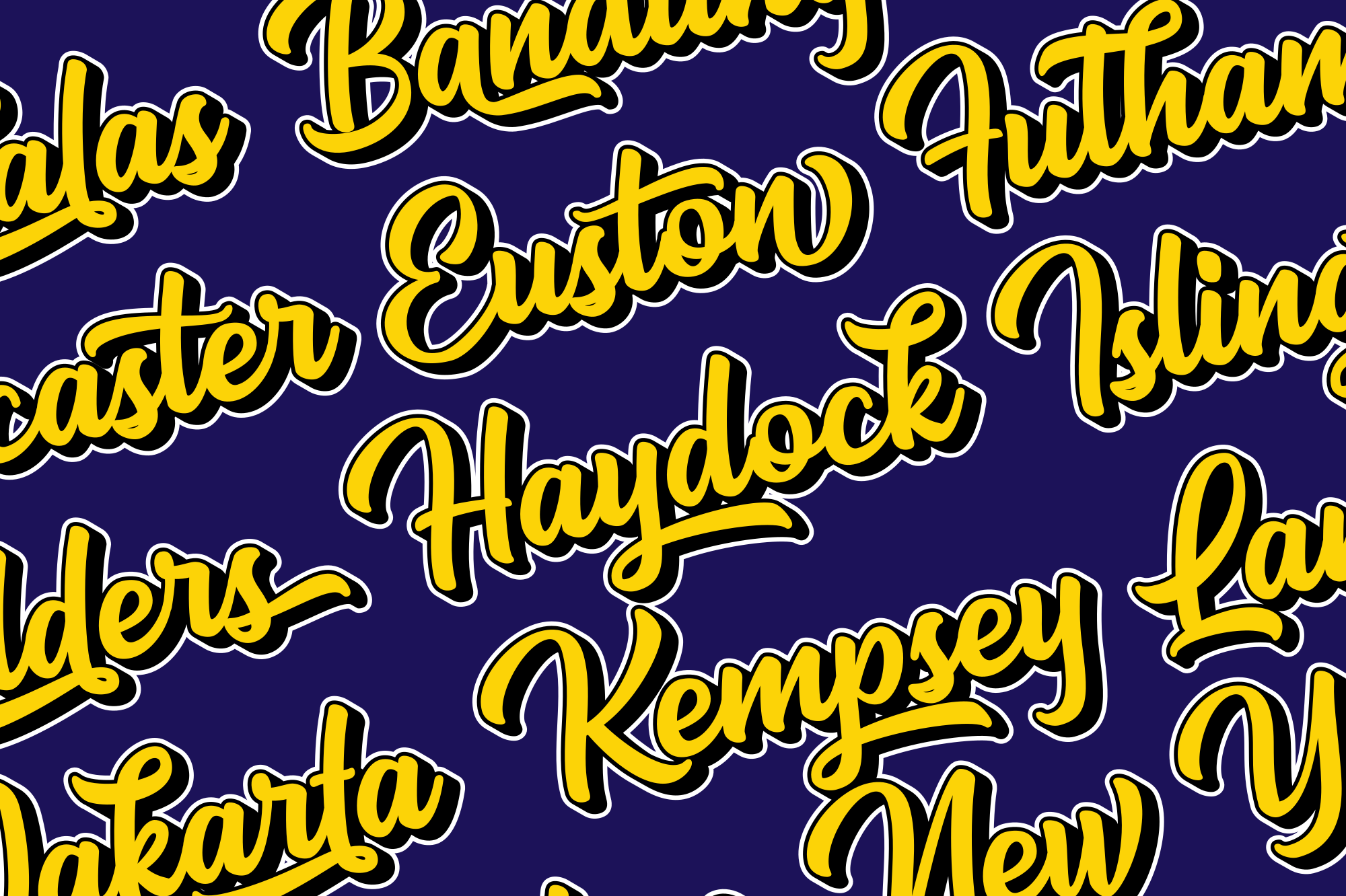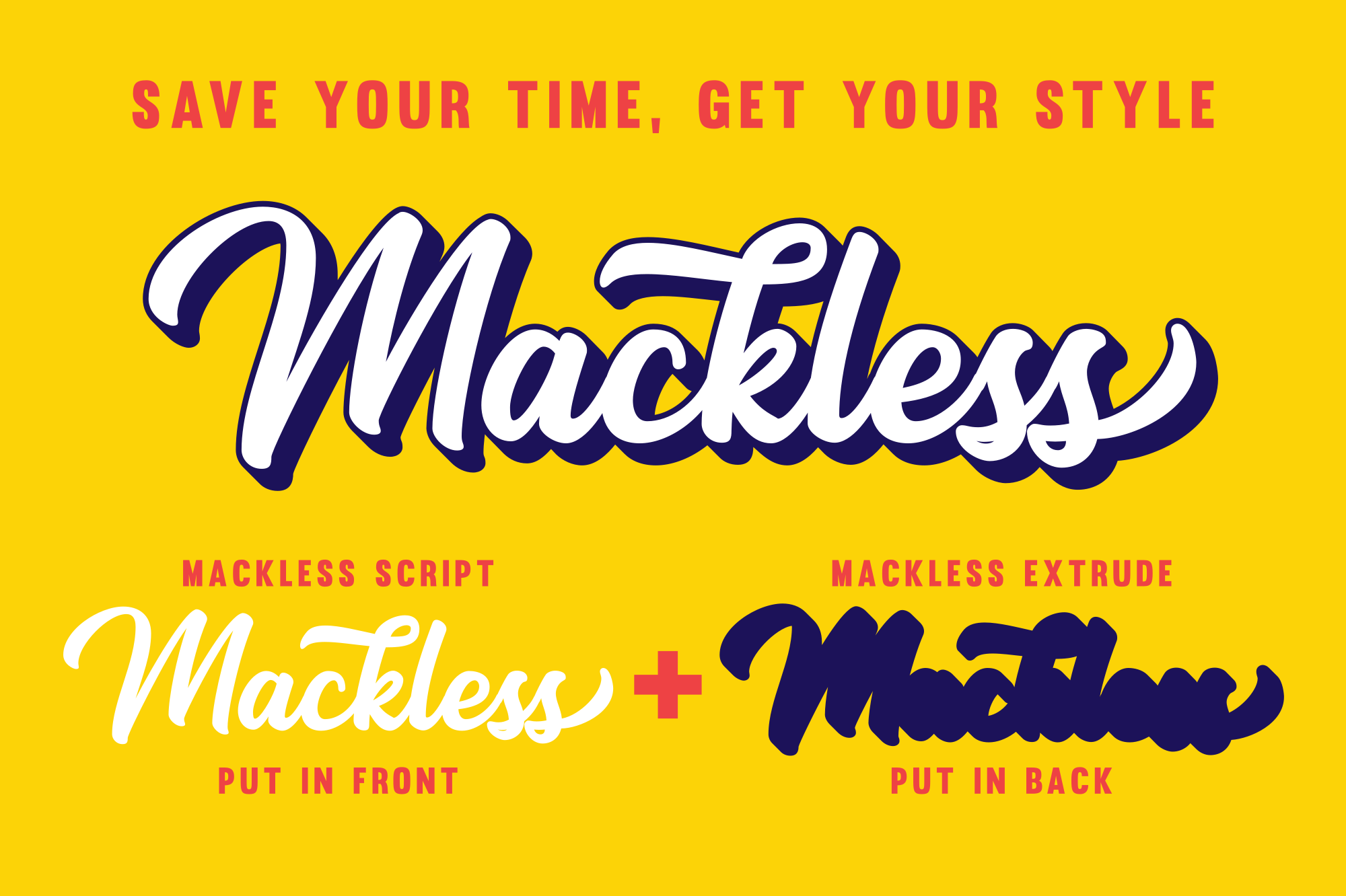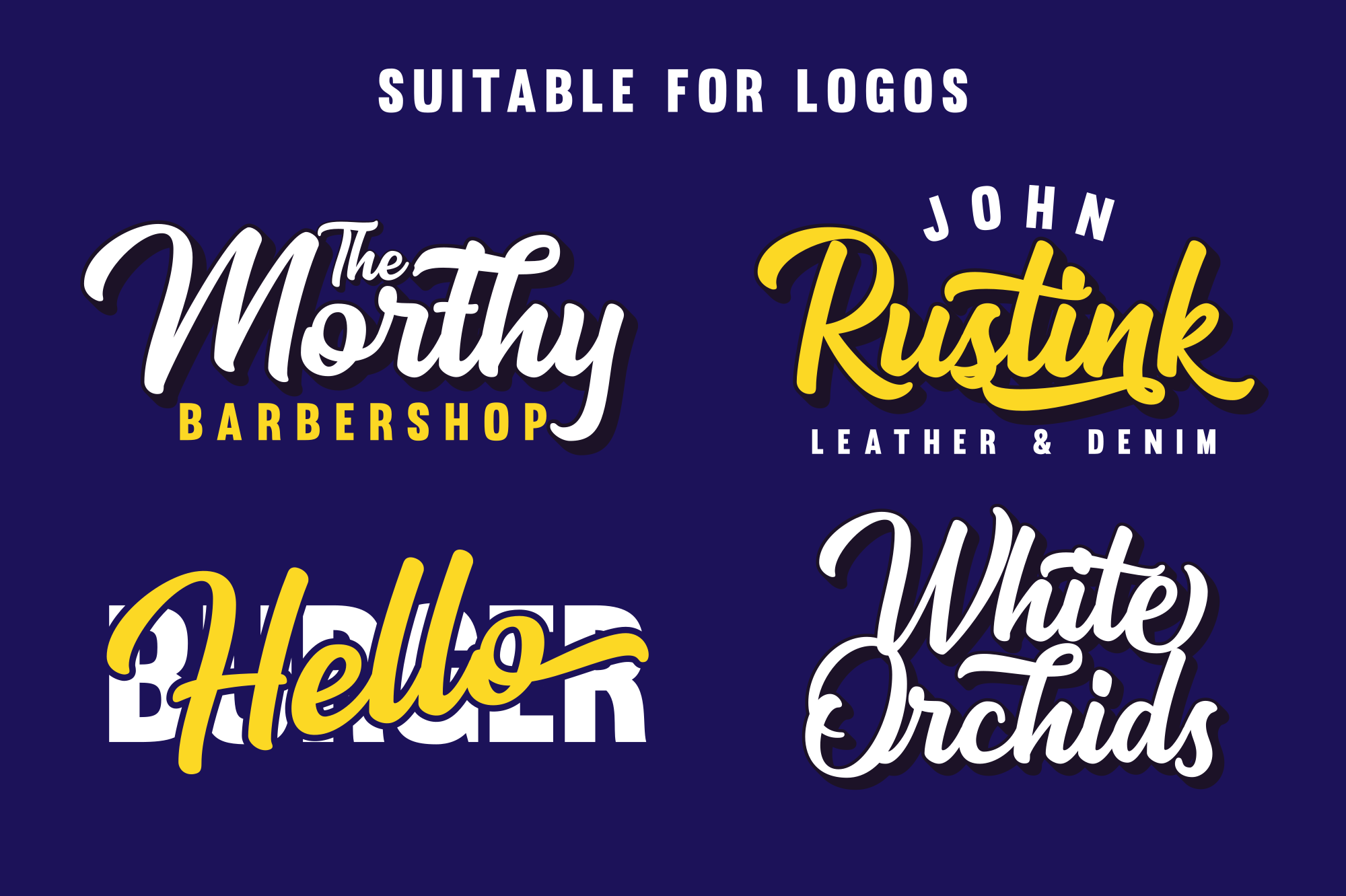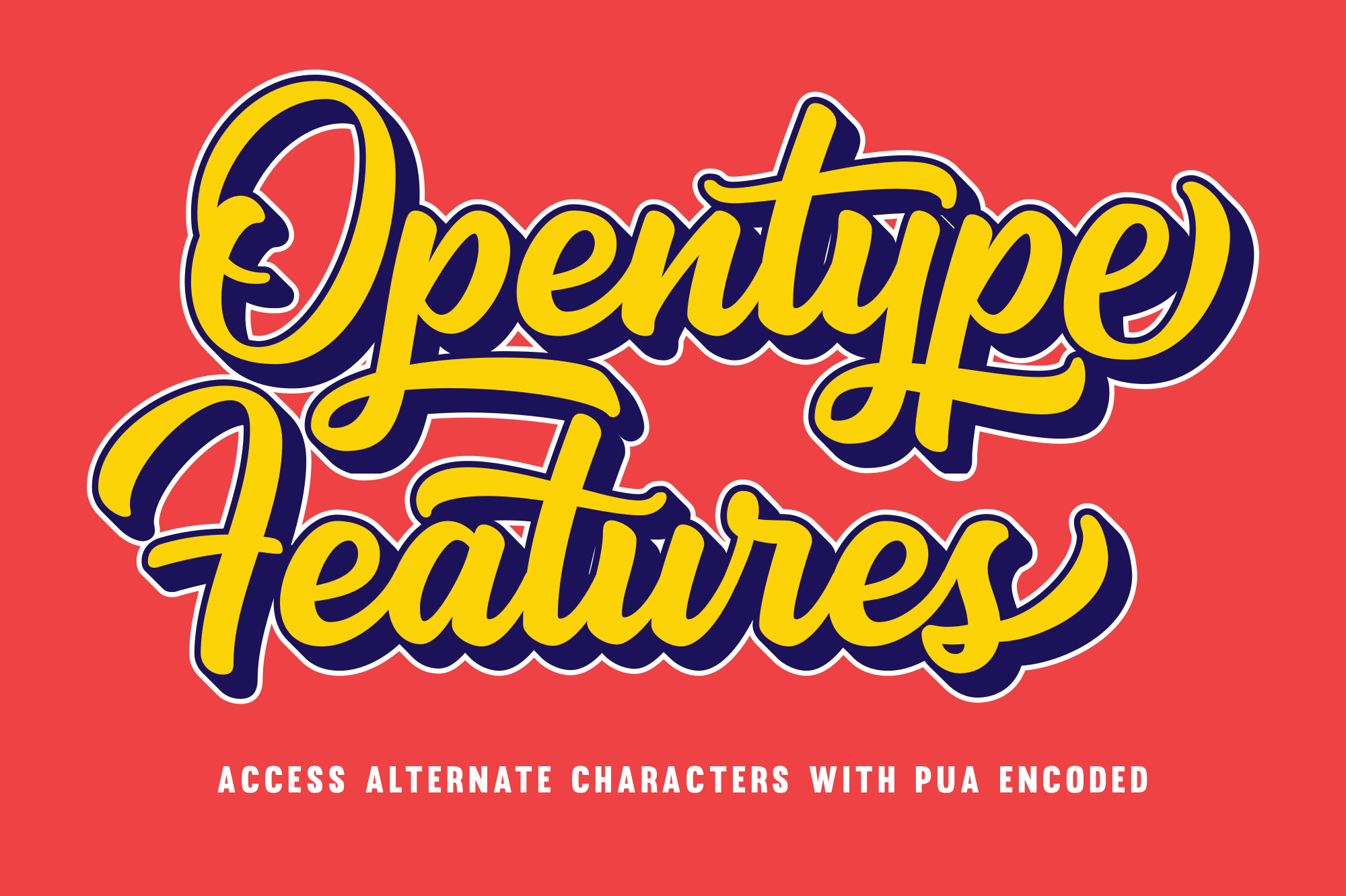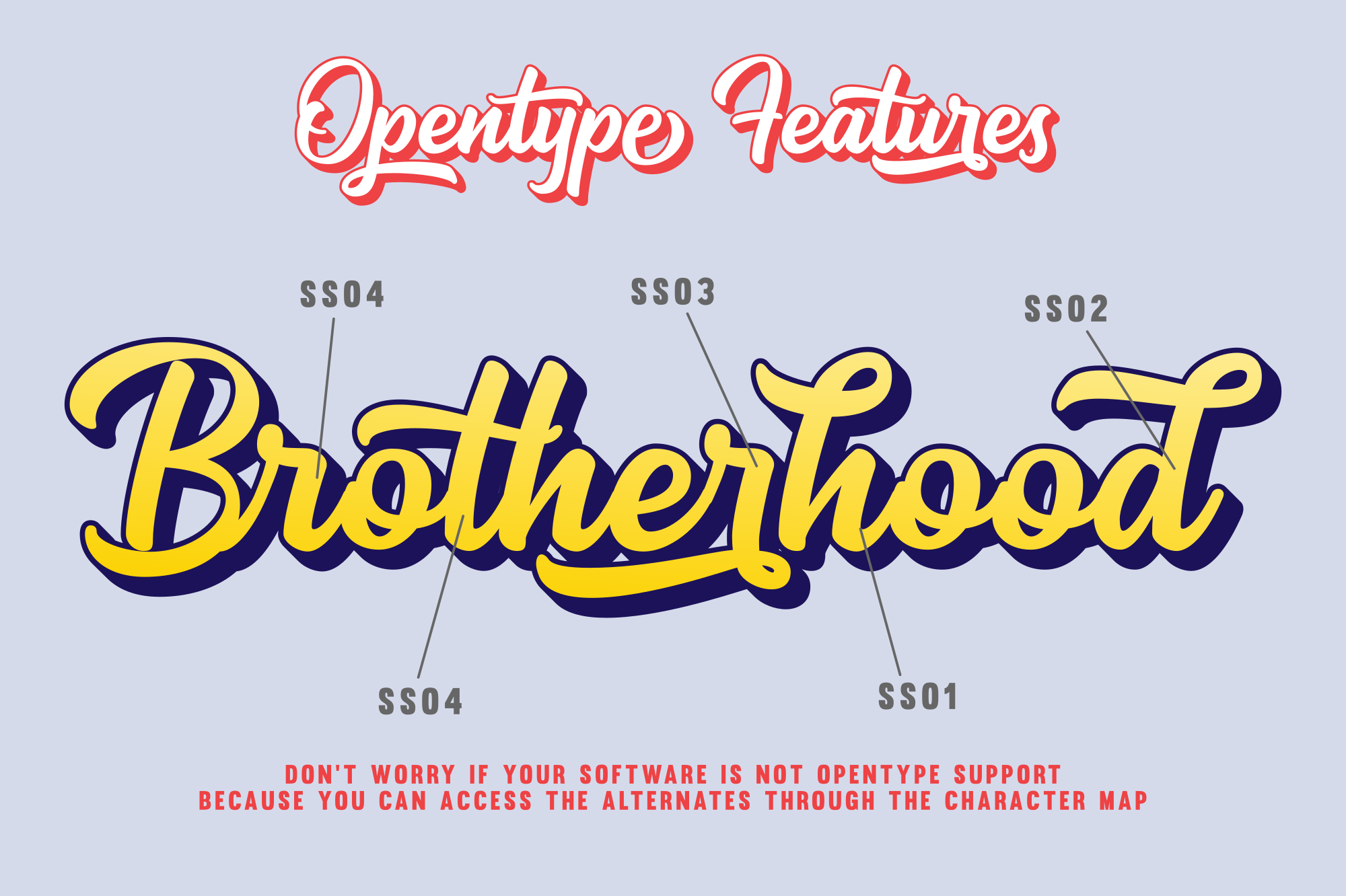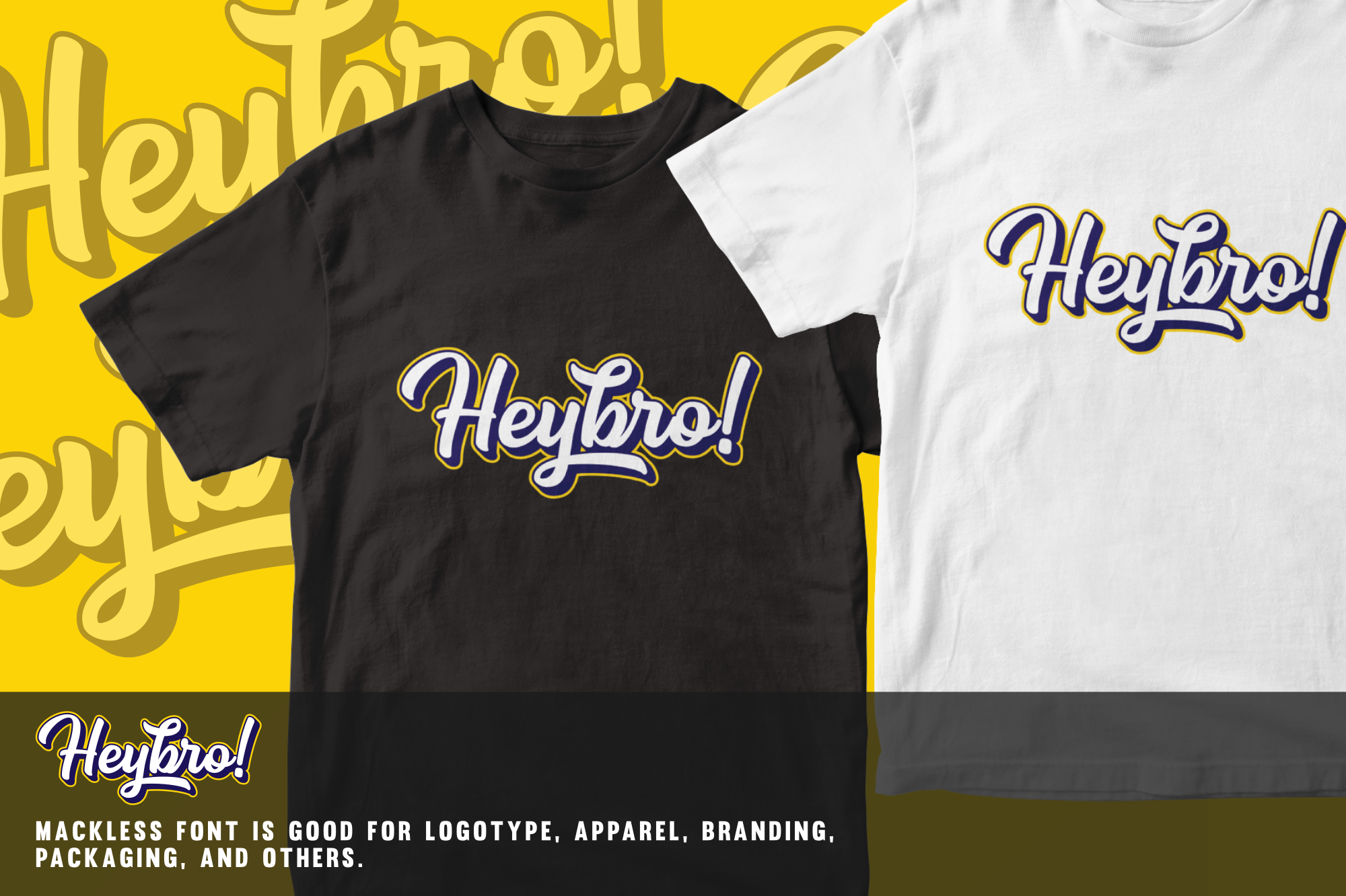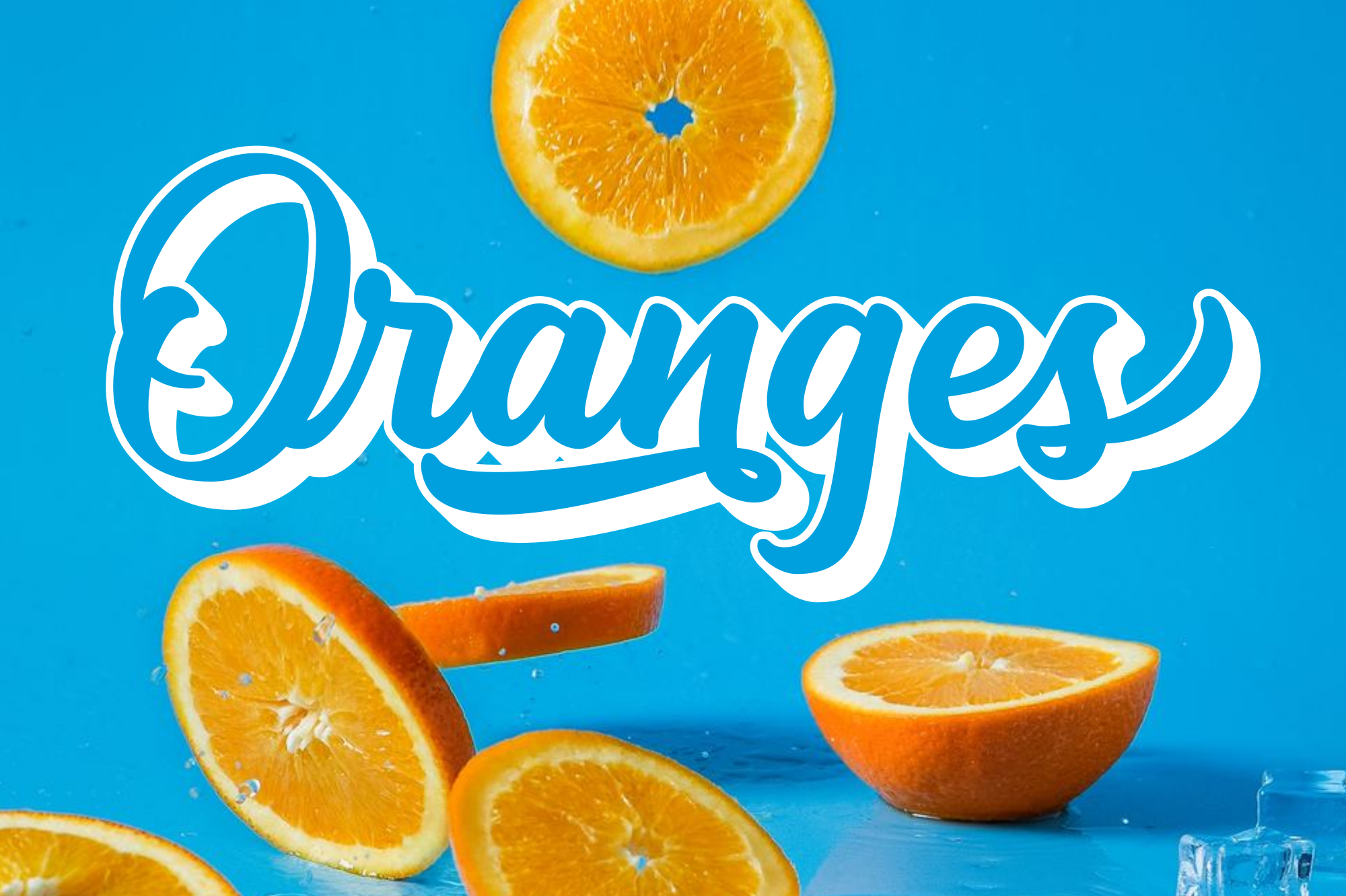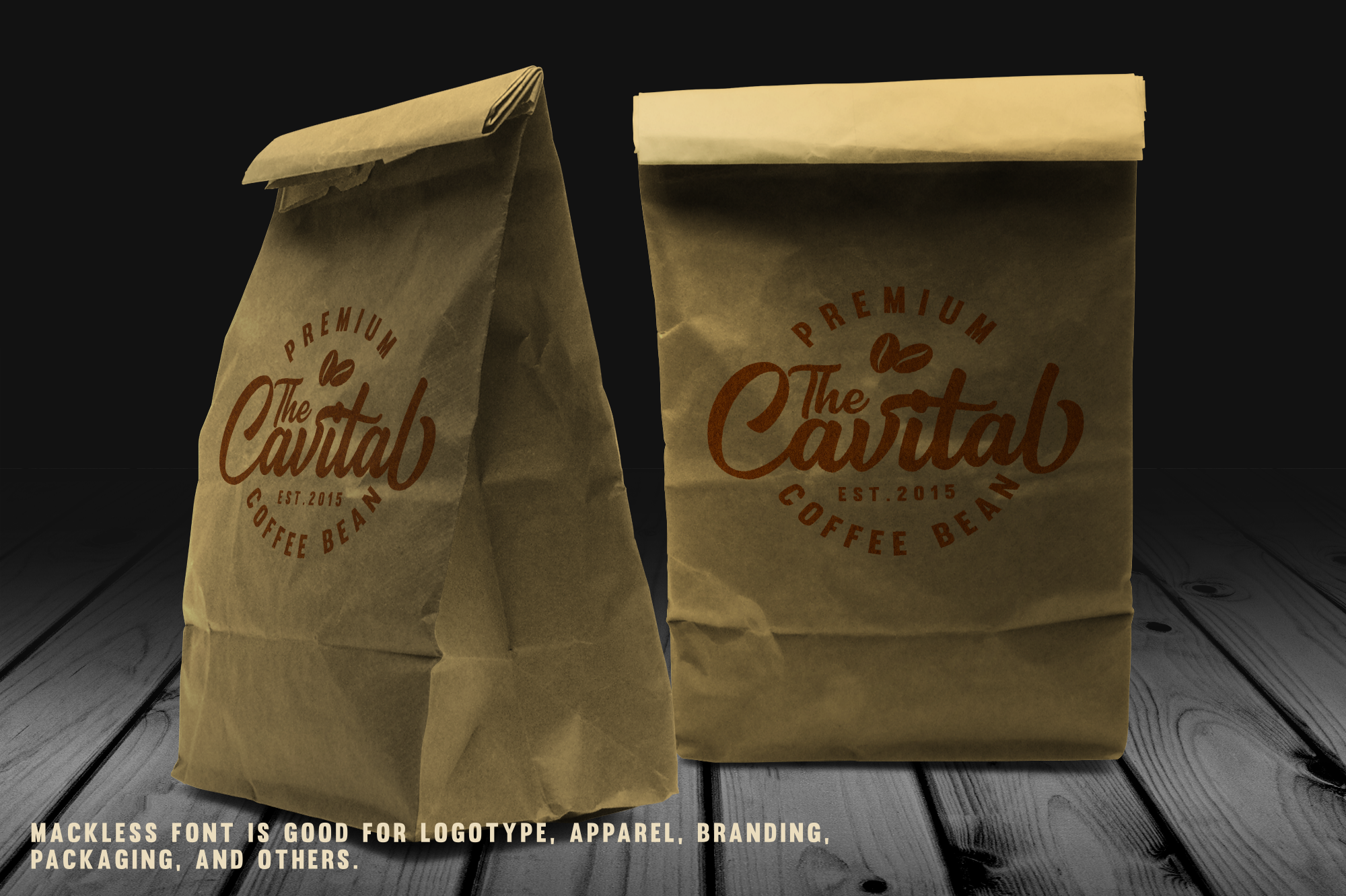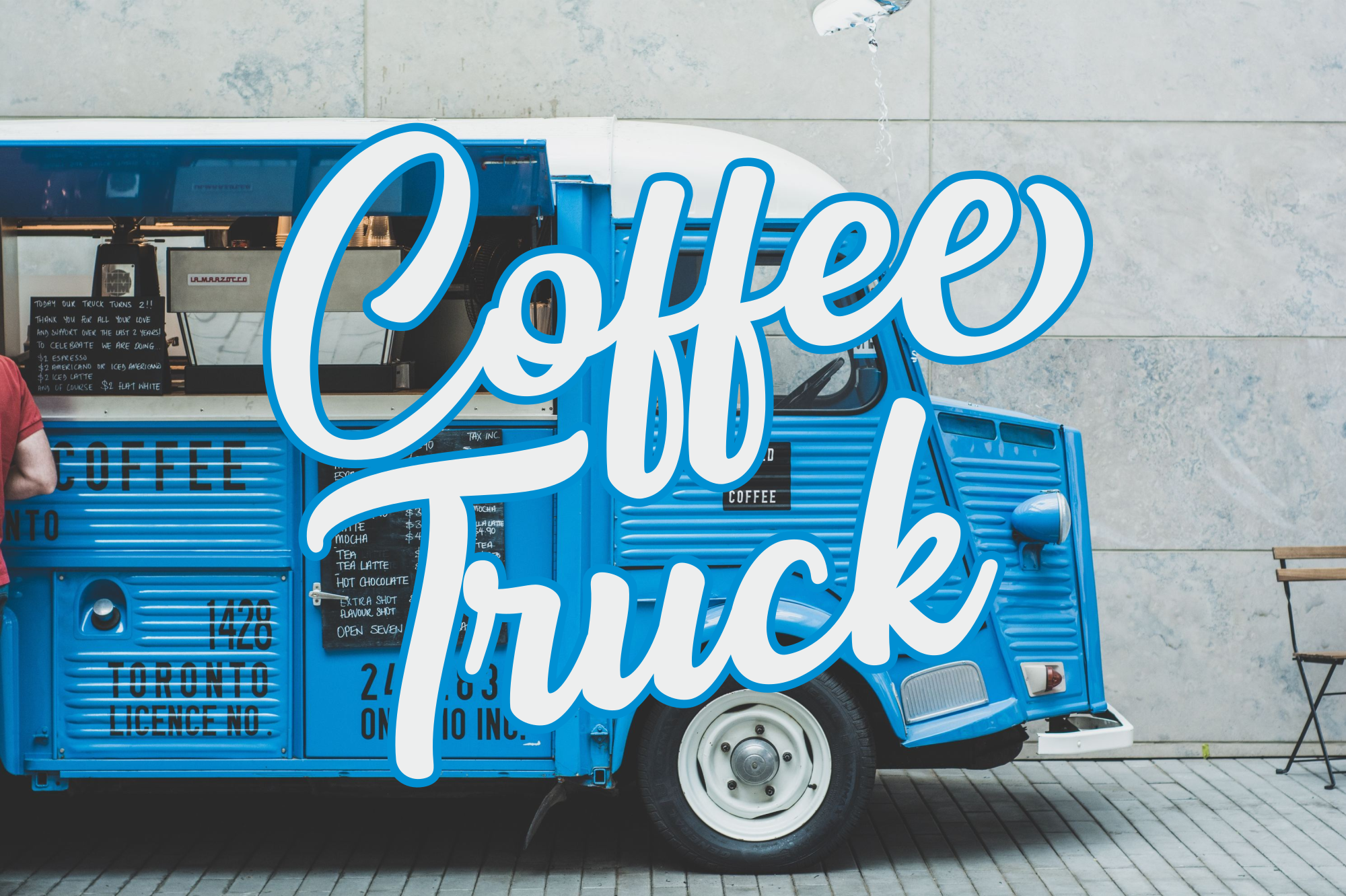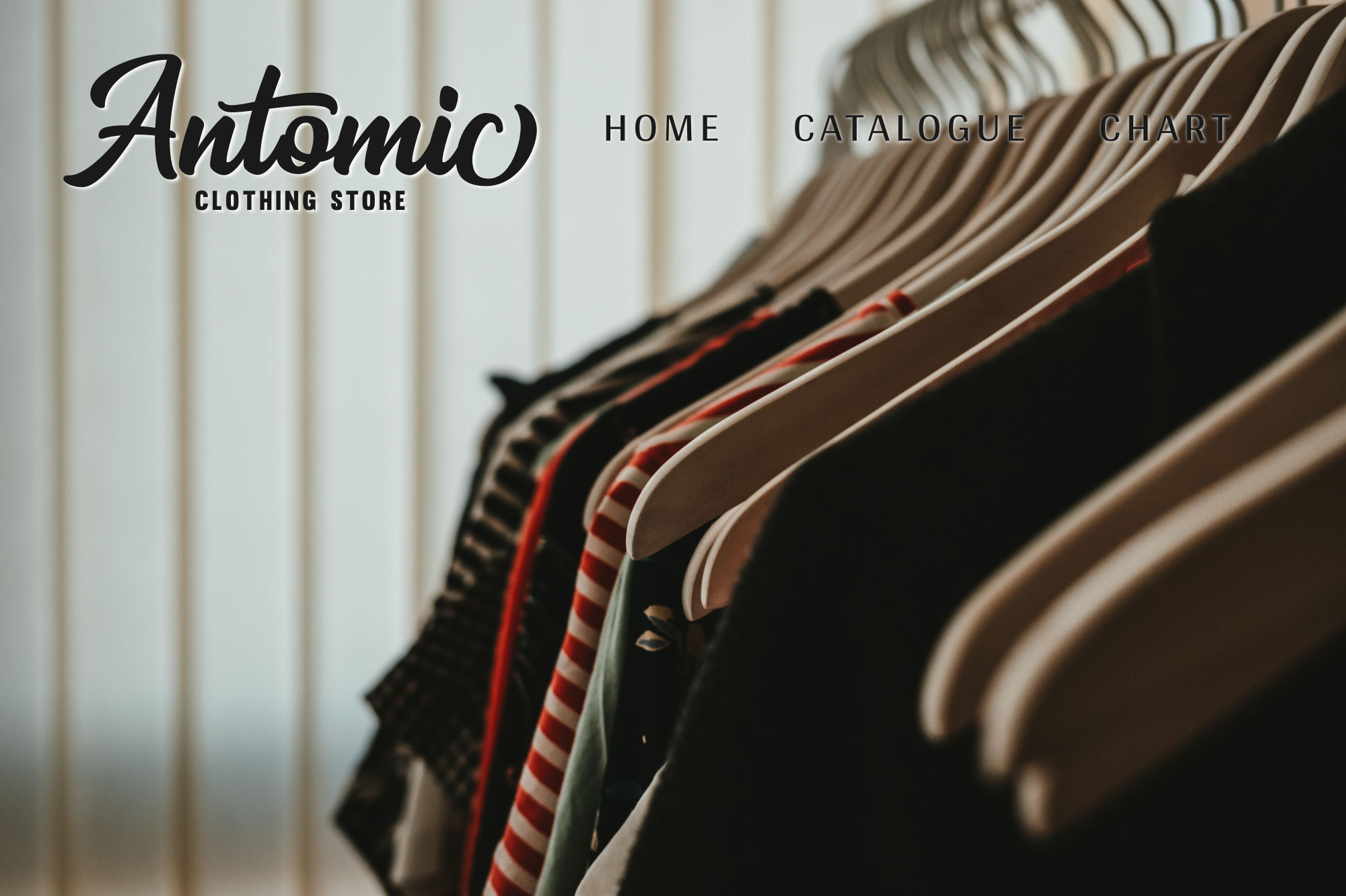
Mackless - Layered Script Font
Mackless is a fun and bold handwritten font inspired by retro logos. It has a unique charm that makes it stand out in vintage and display design projects.
- Mackless Extrude, Mackless Script
Mackless is a fun and bold handwritten font inspired by retro logos. It has a unique charm that makes it stand out in vintage and display design projects. It is perfect for logos, badges, posters, apparel, packaging, headlines, labels, and more.
Logos, badges, posters, apparel, packaging, headlines, labels,